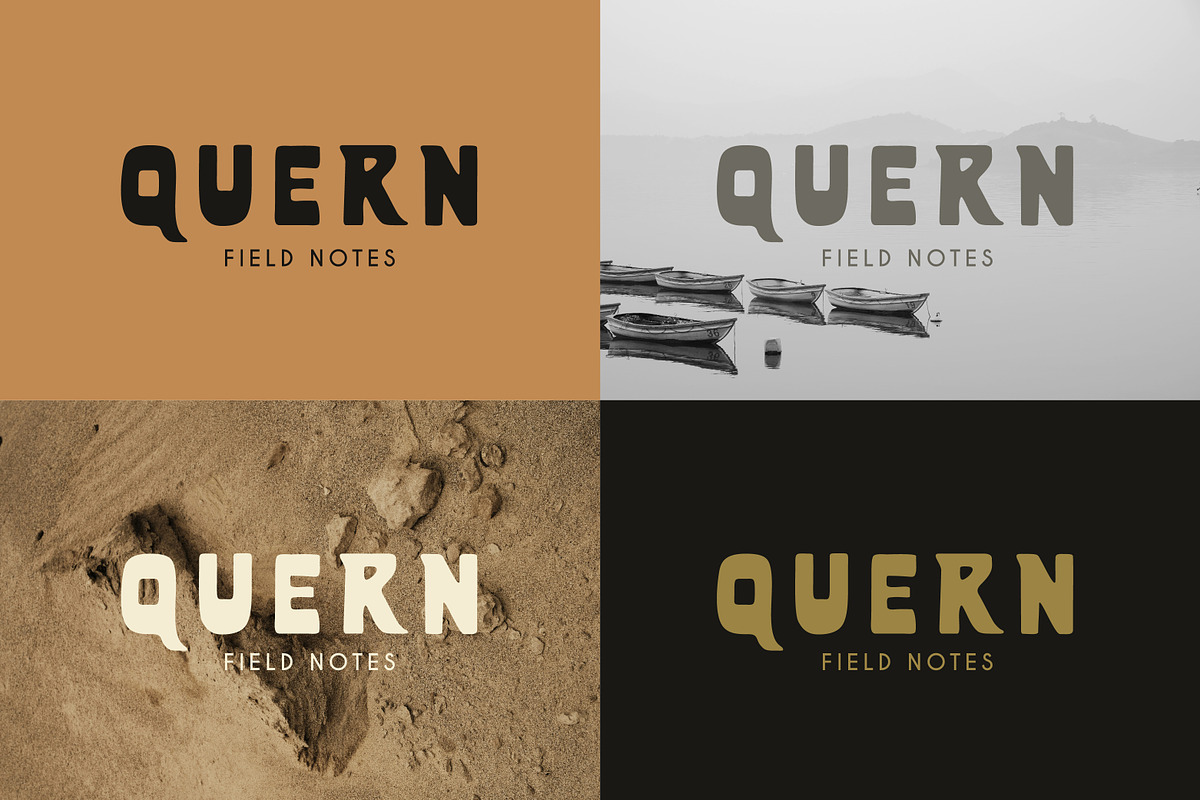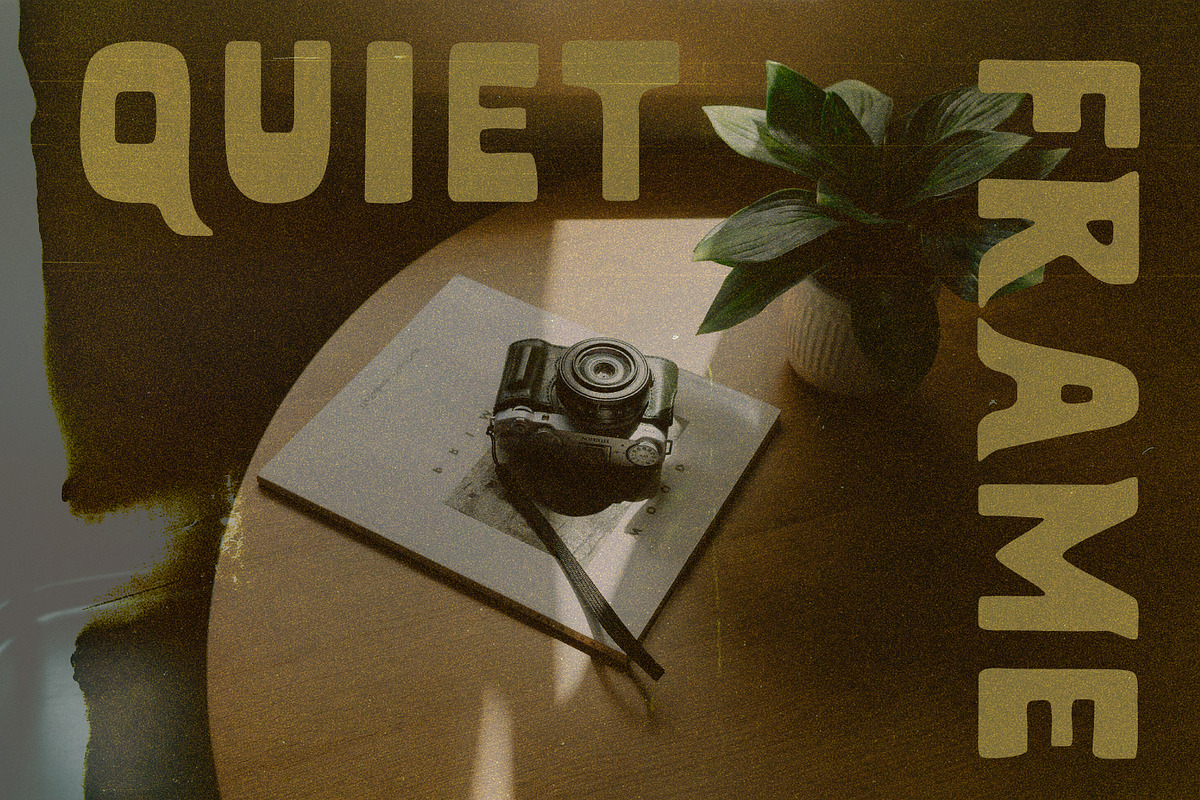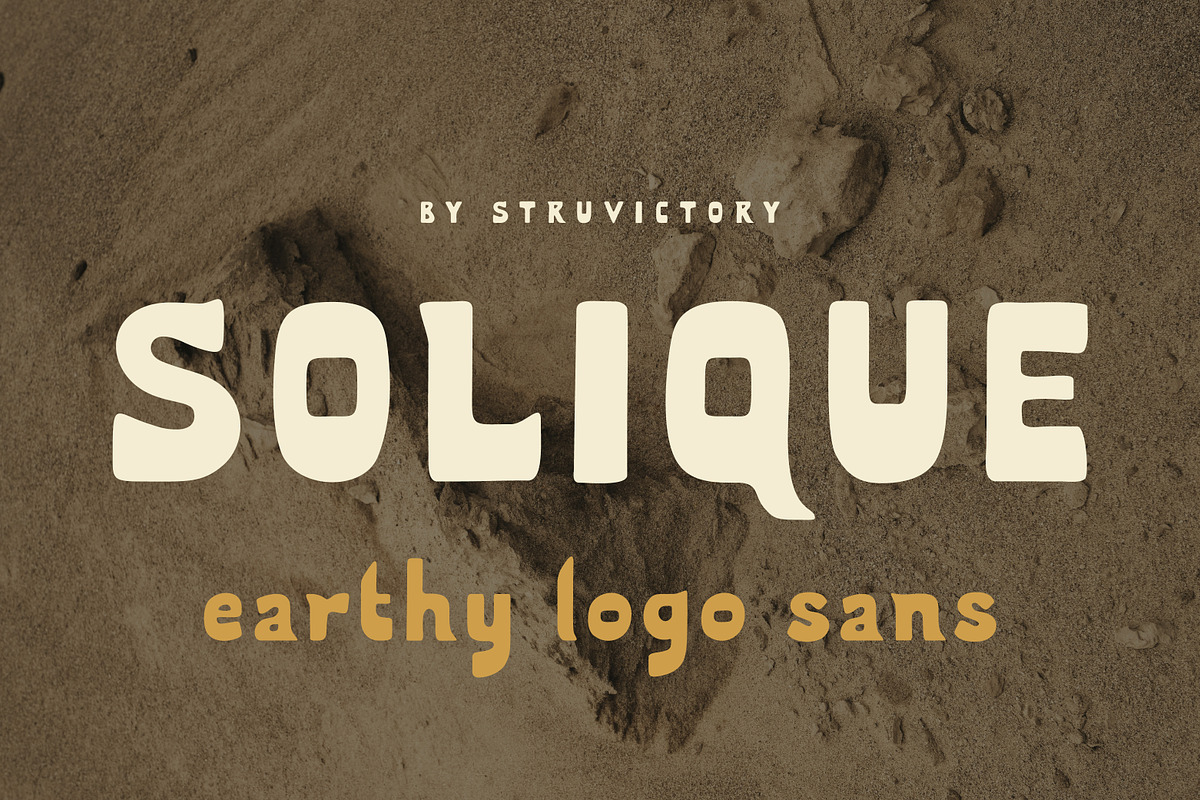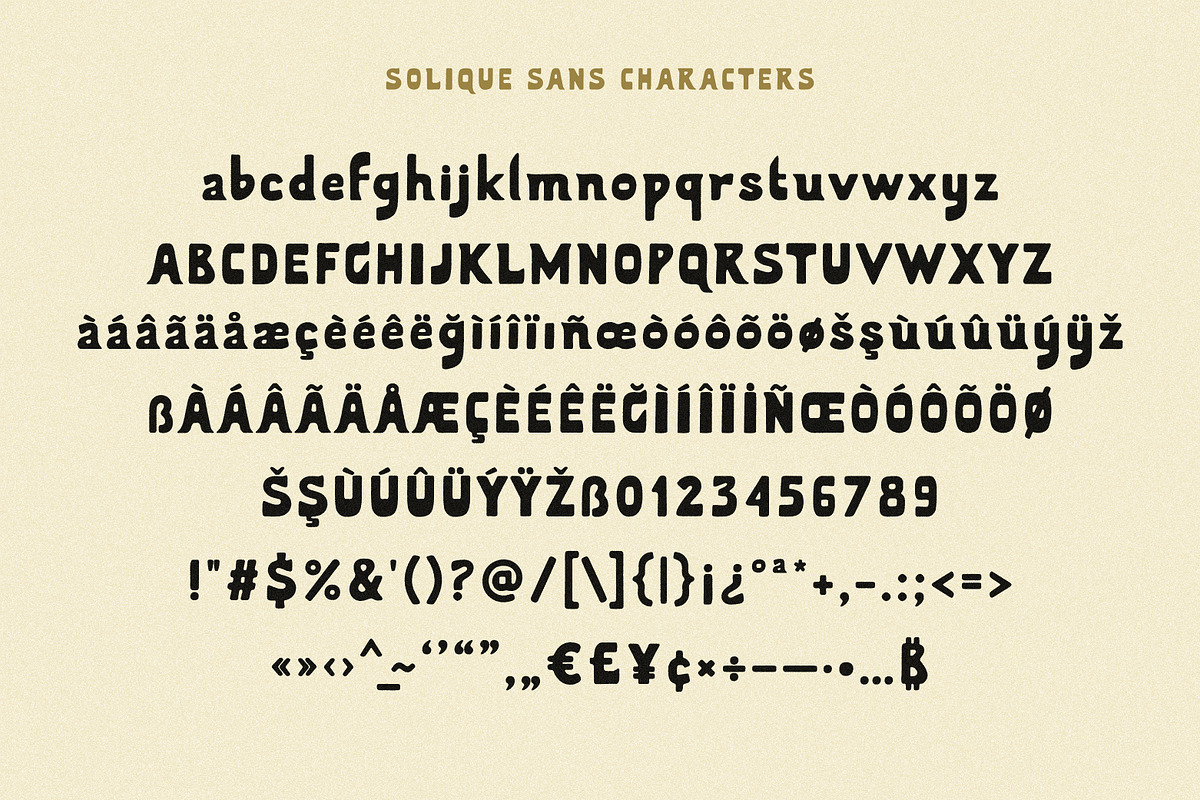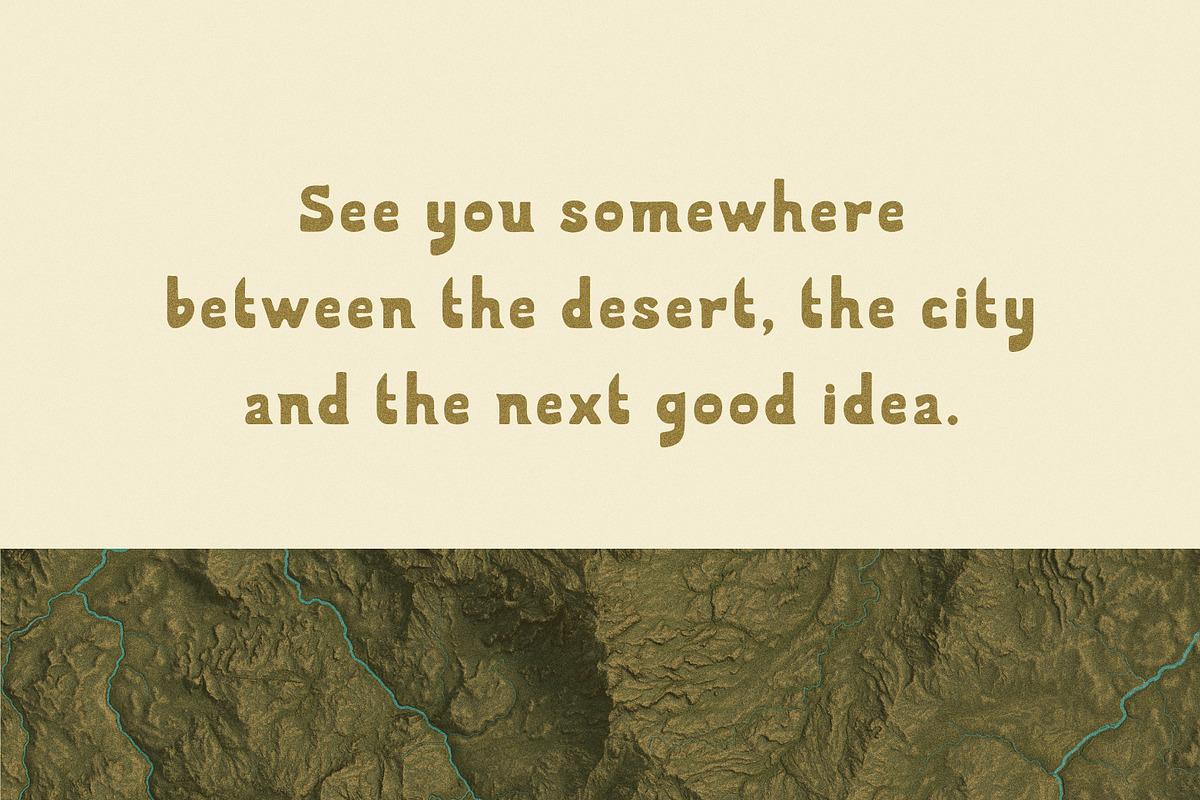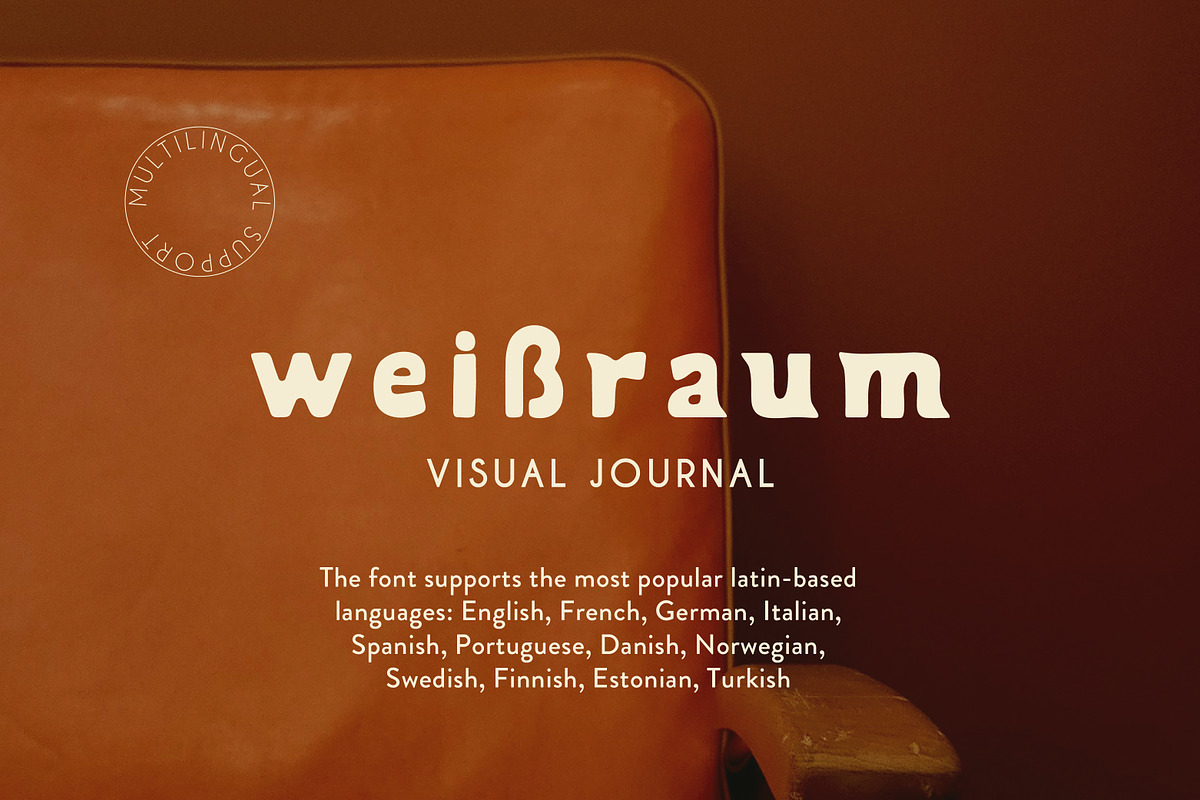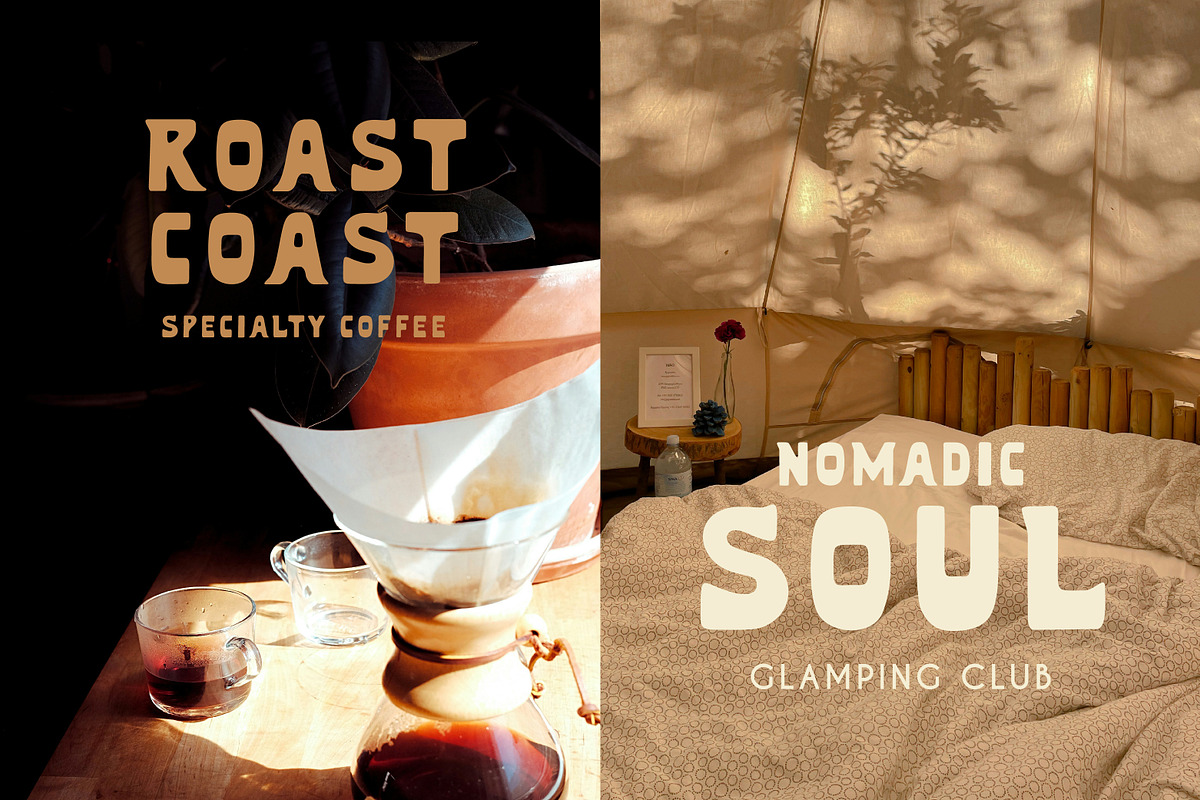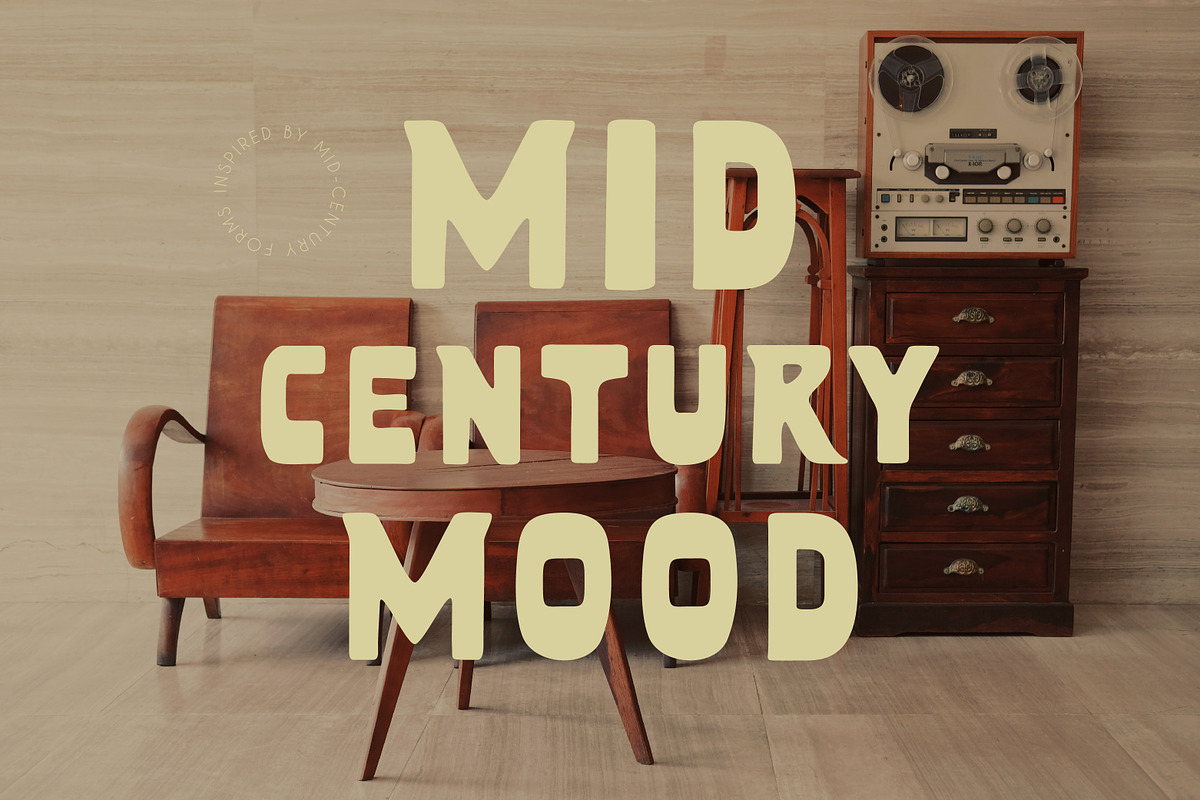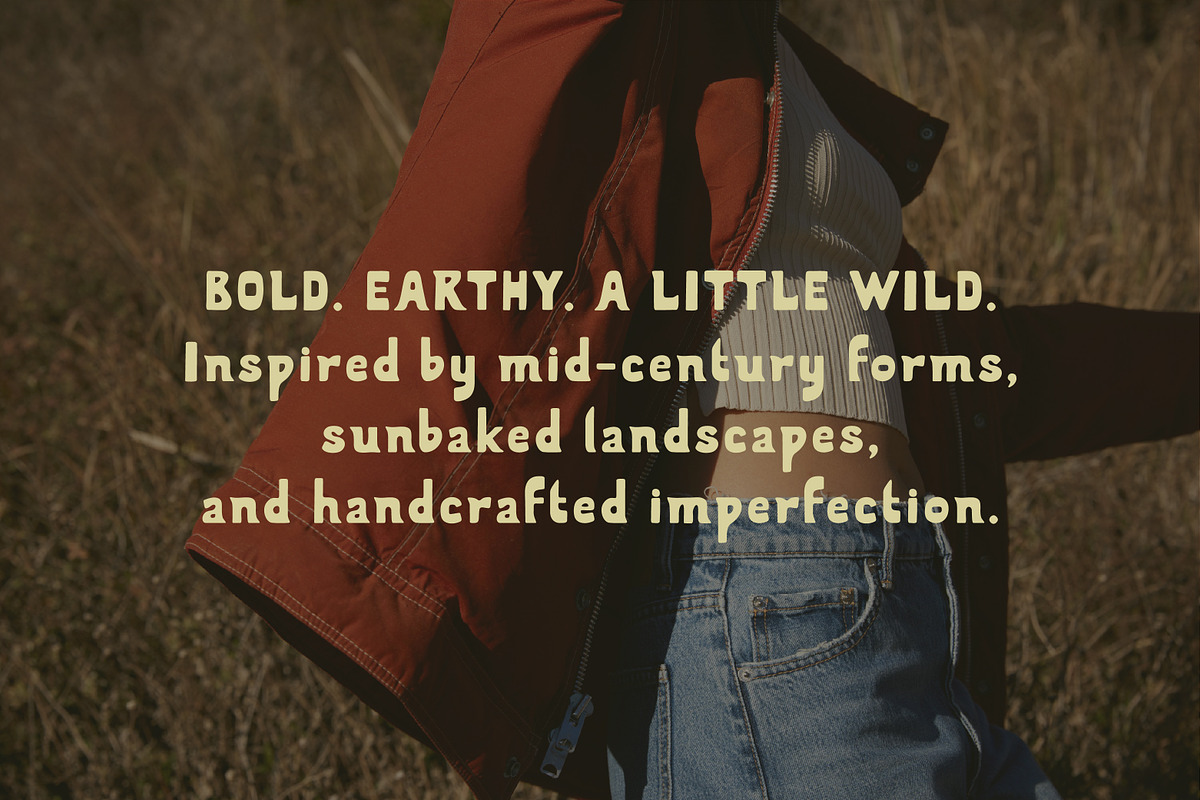
Solique Earthy Nomadic Logo Sans
Solique is a bold earthy sans inspired by sunbaked landscapes, handcrafted lettering, and mid-century design. Its chunky organic shapes, subtle imperfections, and playful rhythm create a warm, authentic personality that feels equally at home on vintage packaging, branding, editorial layouts, posters, cafés, outdoor labels, and lifestyle products. Designed to balance boldness with friendliness, Solique brings a natural handcrafted character to modern projects while remaining highly readable and versatile. Perfect for designers looking to add warmth, texture, and timeless personality to their work.
Solique Sans supports the most popular latin-based languages, you can check the symbol you need by typing a couple of words in the font preview box.